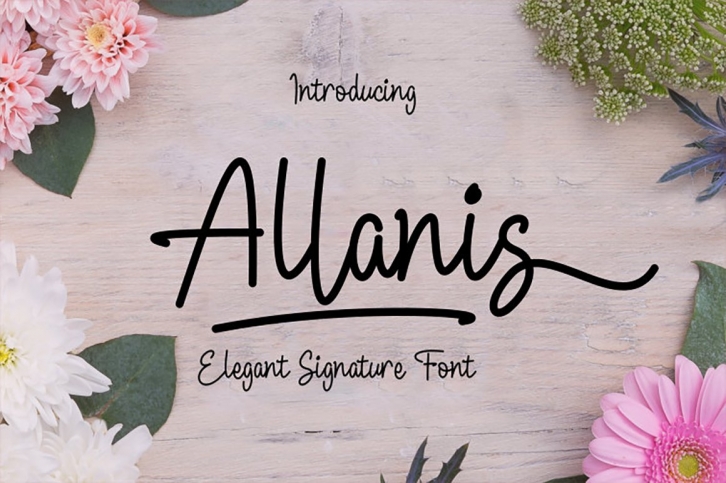
Allanis is a trendy and unique font with an authentic style. It was designed by NURF Designs and it's a great choice for creative people who need such a font. It was released on October 17, 2020 and the file size is 21.38 MB. Allanis will add an organic vibe to any design idea!